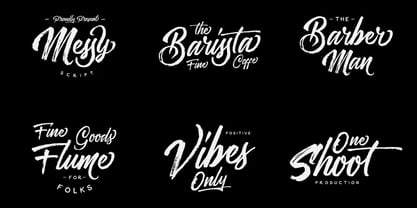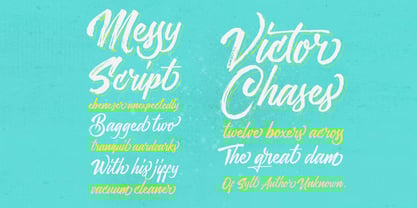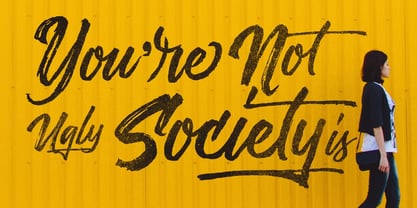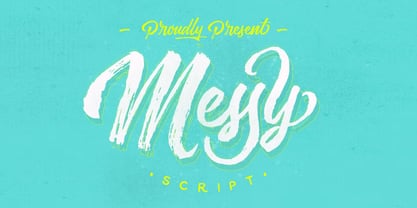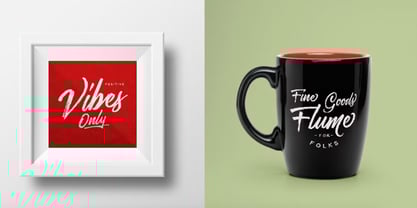
Messy Script
by Maghrib Type
The Messy Script Font Family was designed by Rizky Setyaludin and published by Maghrib Type. Messy Script contains 1 styles.
Messy Script is a bold, expressive hand-drawn script font that bursts with character and energy. Designed to look authentically imperfect, its rough brush strokes and dynamic flow evoke the feel of real handwriting — messy, spontaneous, and full of life.
Perfect for branding, poster design, merchandise, or any creative project that needs a loud, confident voice, Messy Script brings a touch of rebellion and raw artistic spirit. It works especially well in large formats where its textured detail can shine.
With its modern street-style flair and handcrafted texture, Messy Script is ideal for:
• Apparel & t-shirt prints
• Music album covers
• Hand-lettered quotes
• Packaging & labels
• Creative social media content
Let your designs speak louder with Messy Script — because sometimes, messy is just perfect.